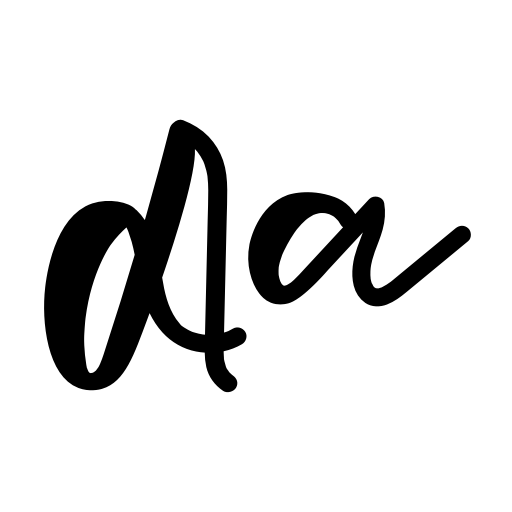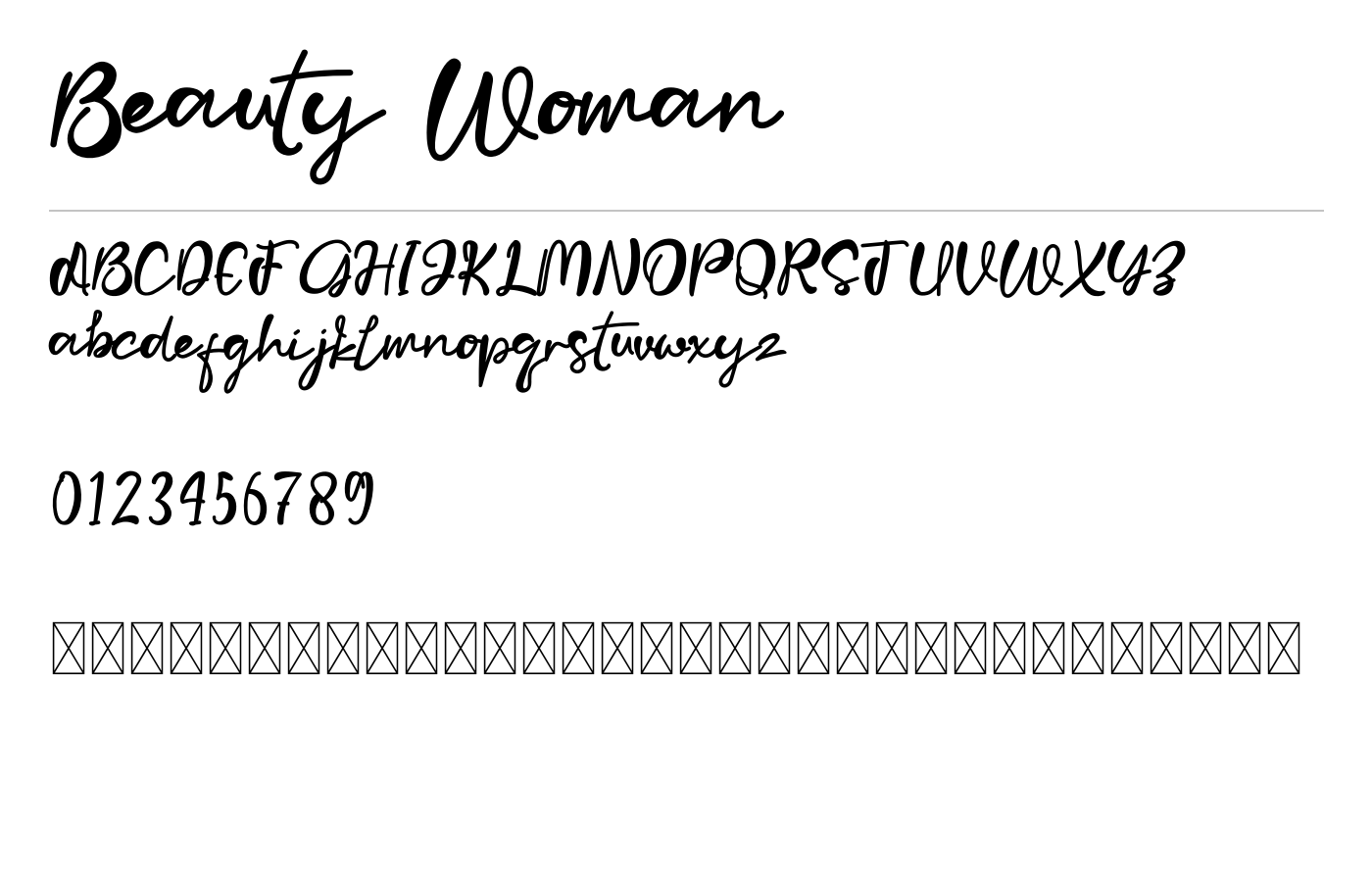
Beauty Woman is a playful and elegant handwritten script font with smooth, flowing strokes and a casual yet refined style. Its medium weight and slightly condensed letterforms give it a friendly and approachable feel, making it ideal for branding, invitations, and lifestyle projects that aim to convey warmth and personality. This font works beautifully for creative headlines and logos where a personal, charming touch is desired.
Beauty Woman Font
About Beauty Woman Font